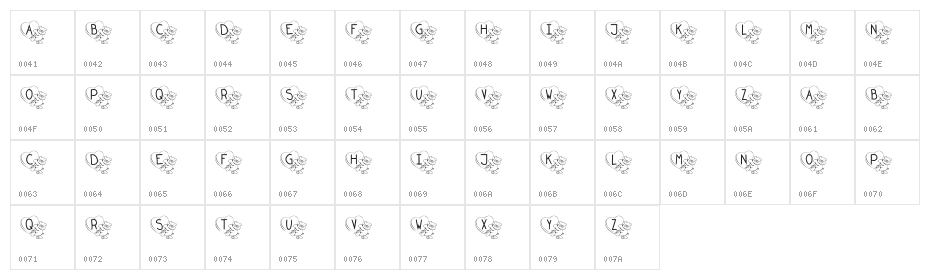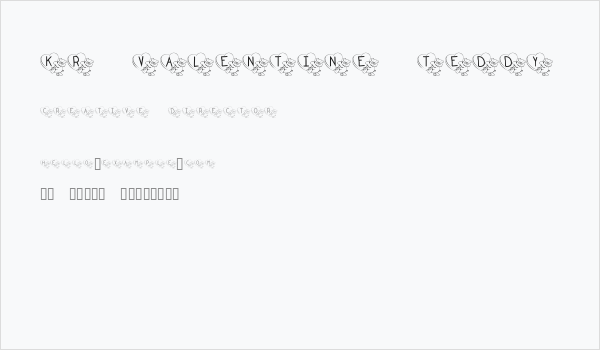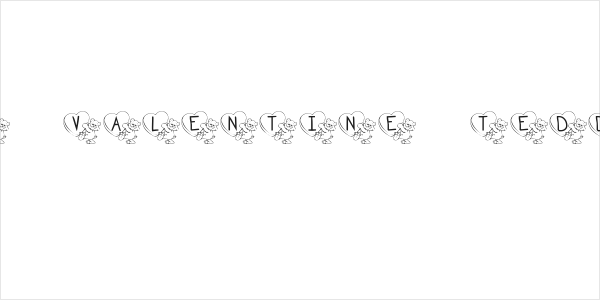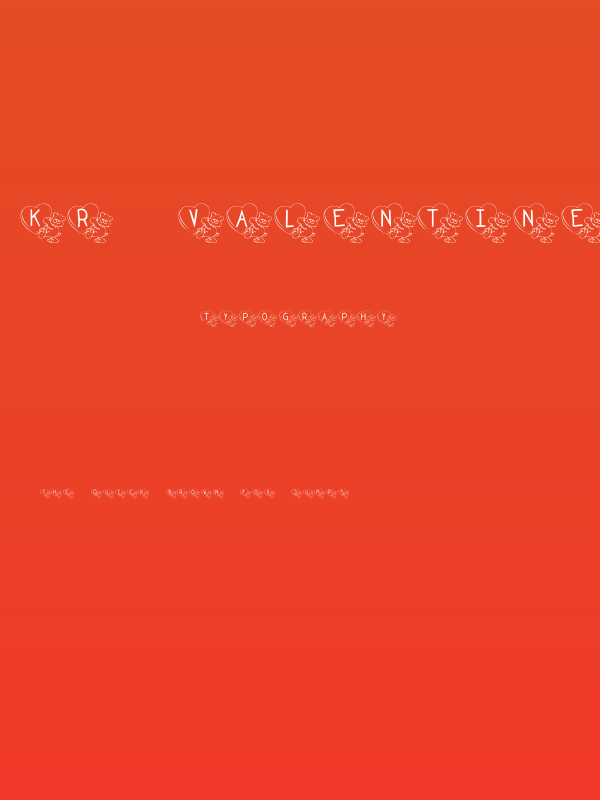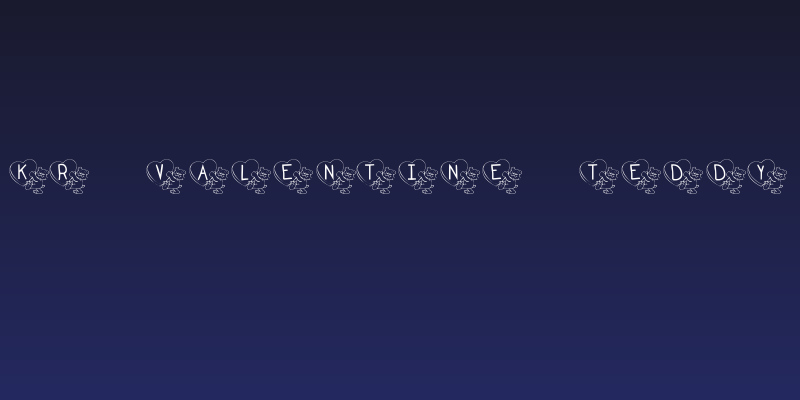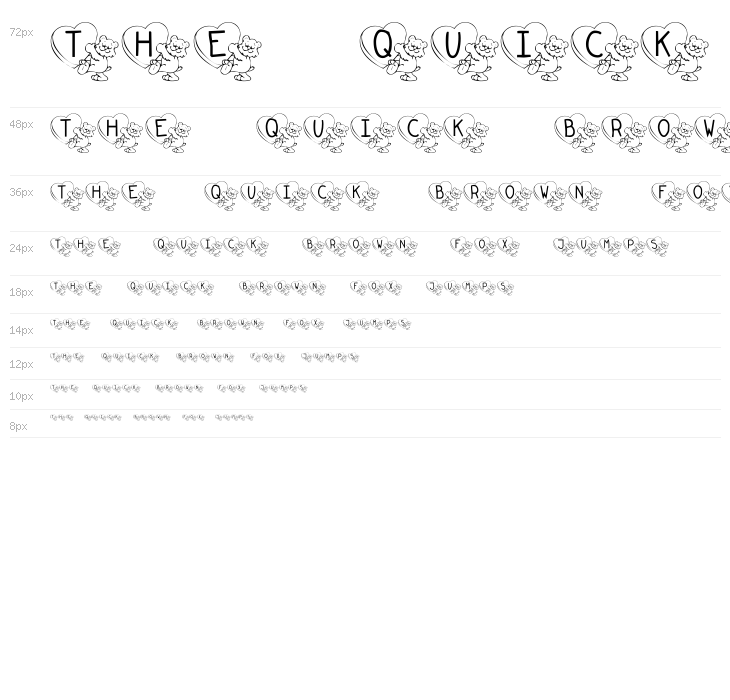
KR Valentine Teddy Font
KR Valentine Teddy Description
This playful and decorative font features uppercase letters enclosed within heart shapes, each accompanied by a charming teddy bear illustration. The letters are bold and clear, making them stand out against the whimsical backdrop. The font is designed to evoke a sense of fun and affection, perfect for themes related to love and celebration. The heart and teddy bear motifs add a unique, endearing touch, making it suitable for projects that require a personal or romantic feel. The font does not include lowercase letters, numbers, or special characters, focusing solely on the uppercase alphabet.
| Proposed Projects | Ideal for Valentine's Day cards, wedding invitations, children's party decorations, and love-themed crafts. |